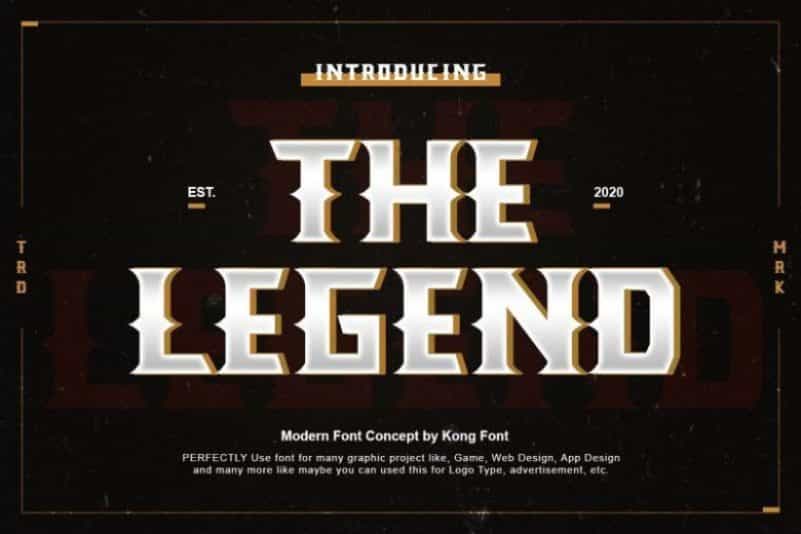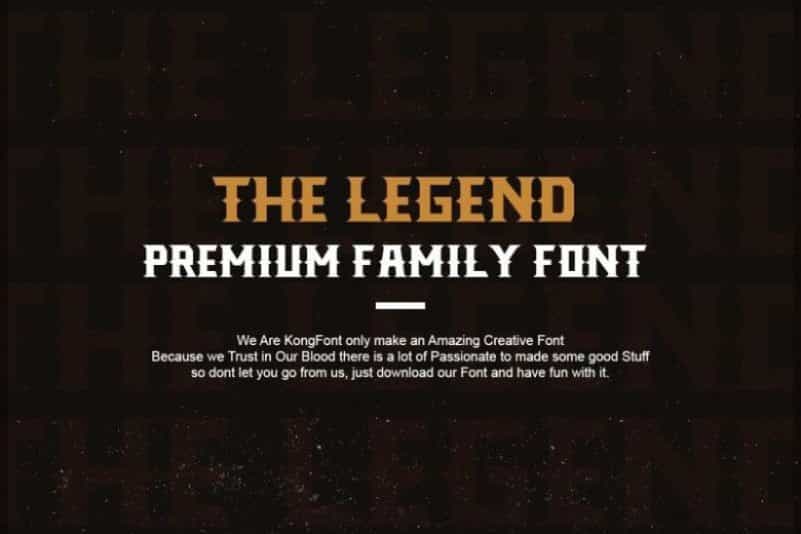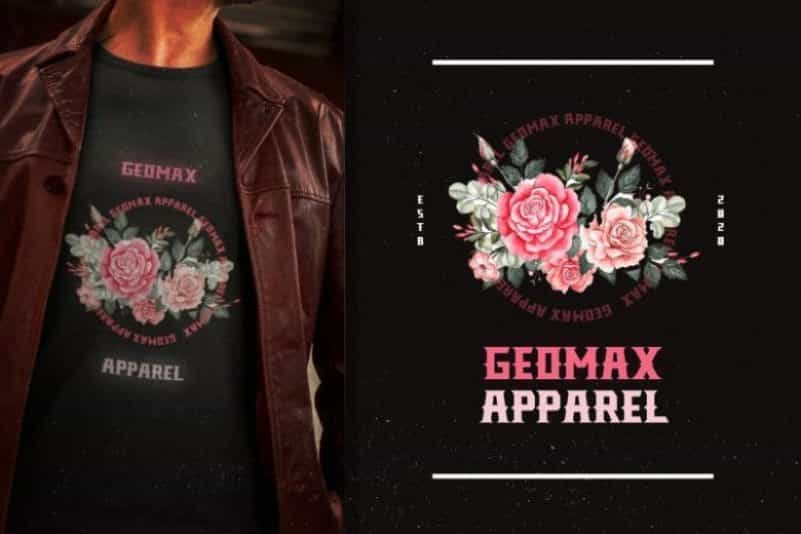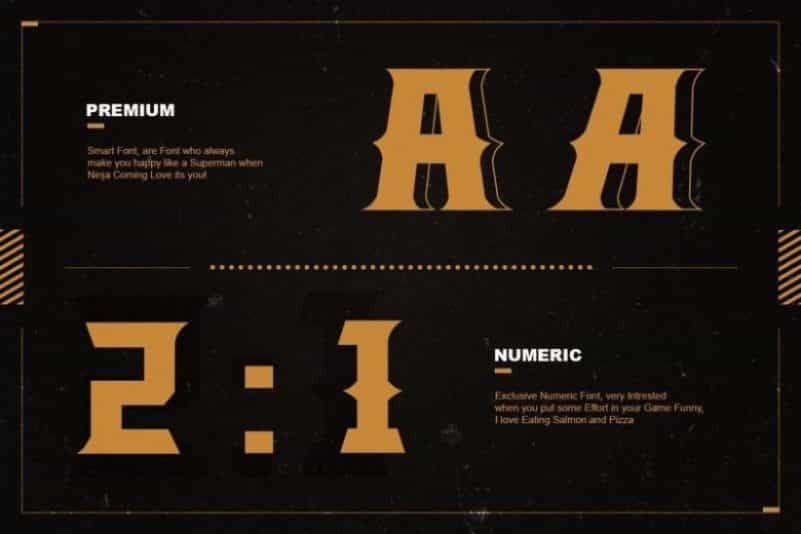
The Legend is a display font. Following the american western culture and tattoos, is great for vintage-themed designs. Knucklehead is the ideal choice for any project which needs an old western theme as its main design elements, like a logo, wedding invitation, greeting card or poster.